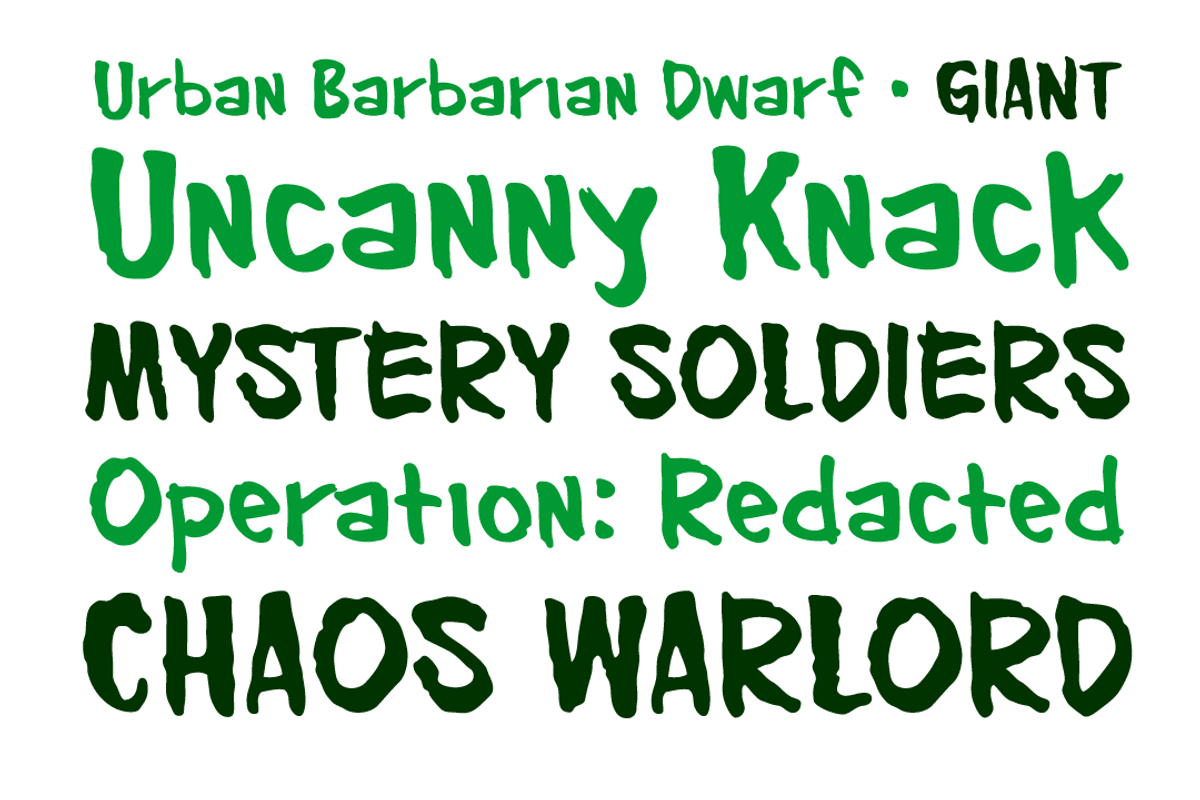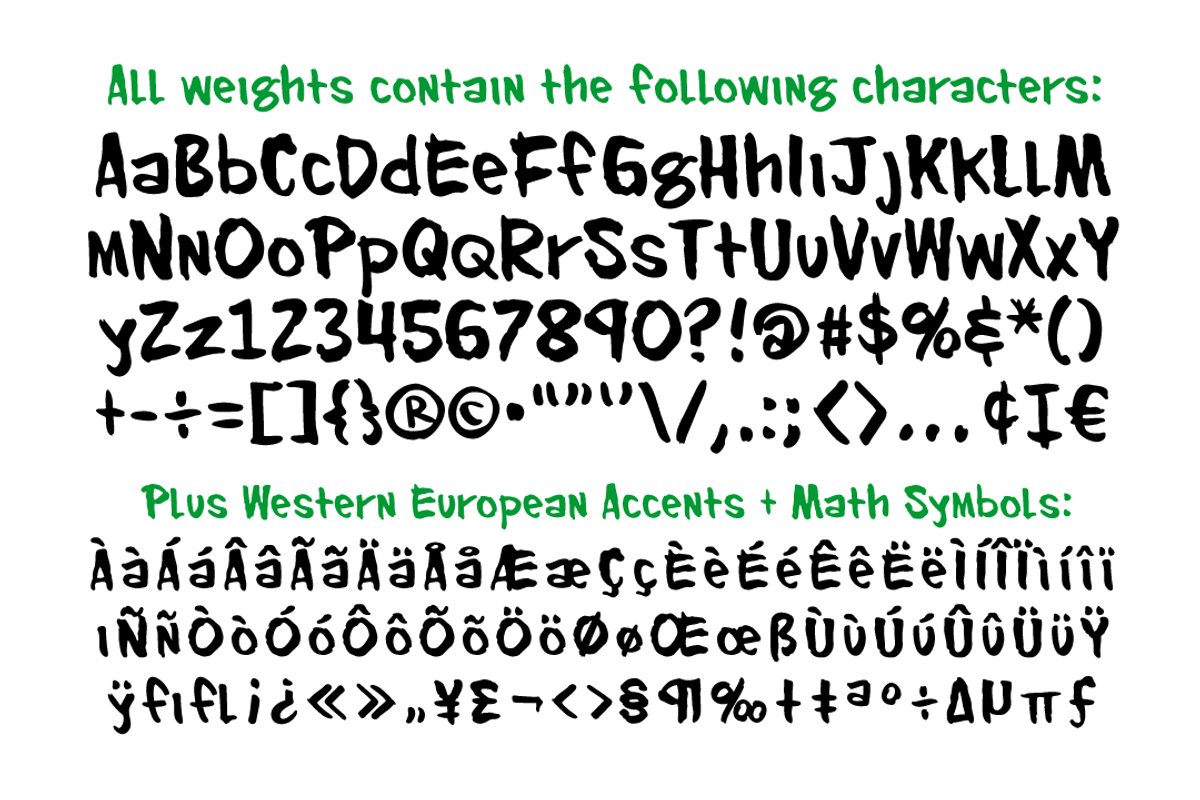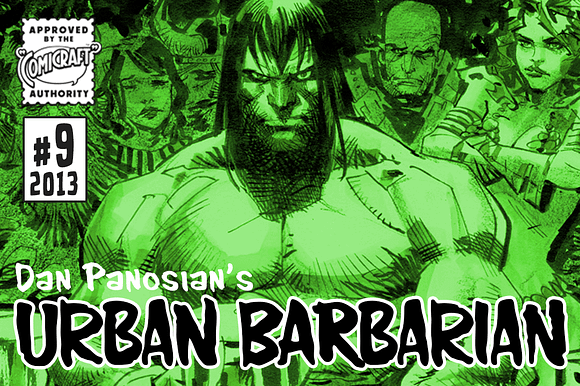
Urban Barbarian
He's been mixing one part artist and one part barbarian since 2005. Brutal, ruthless, cutthroat, he moves through the concrete jungle, unsheathing his, um, sword, taking what he wants without care or remorse. He follows no rules. He is the URBAN BARBARIAN. The Spoils of Battle Await Him!
Is he Conan? Roger 'Mad Men' Sterling? No, he's Dan Panosian. Artist. Author. Lover of fine women, drinker of fine scotch, drawer of fine pictures. This is his fine font. Well, one of them.
- Features Two fonts: all-uppercase GIANT and upper/lowercase DWARF.